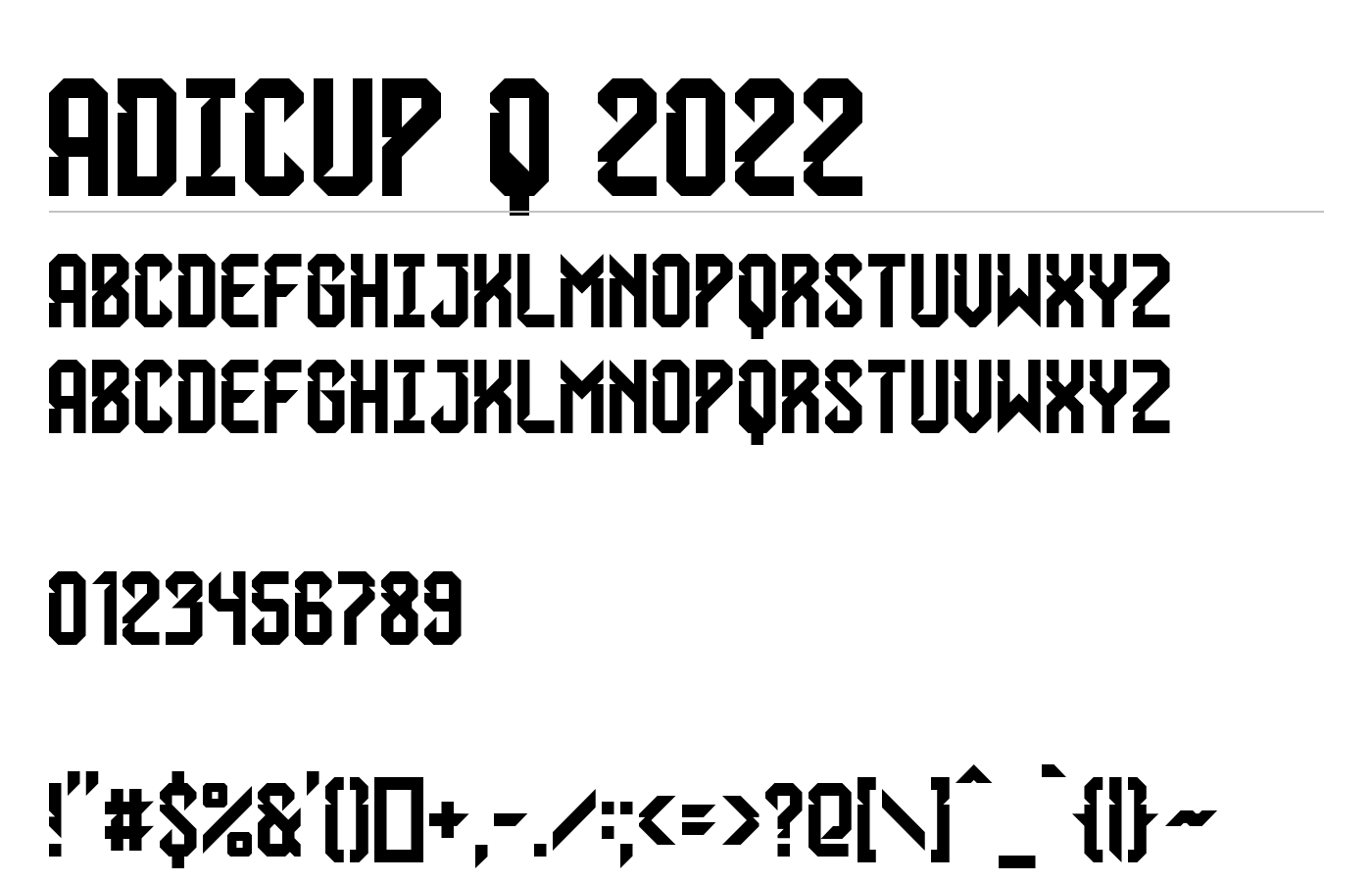
AdiCup Q 2022 is a bold, geometric sans serif font with a strong, angular design that evokes a modern, edgy aesthetic. Its condensed letterforms feature high stroke contrast with sharp corners and a distinctive modular feel, making it ideal for striking headlines, logos, and branding that demand a futuristic or industrial vibe. This typeface works best in display settings where its unique character shapes can stand out and make a memorable impact.
AdiCup Q 2022 Font
About AdiCup Q 2022 Font